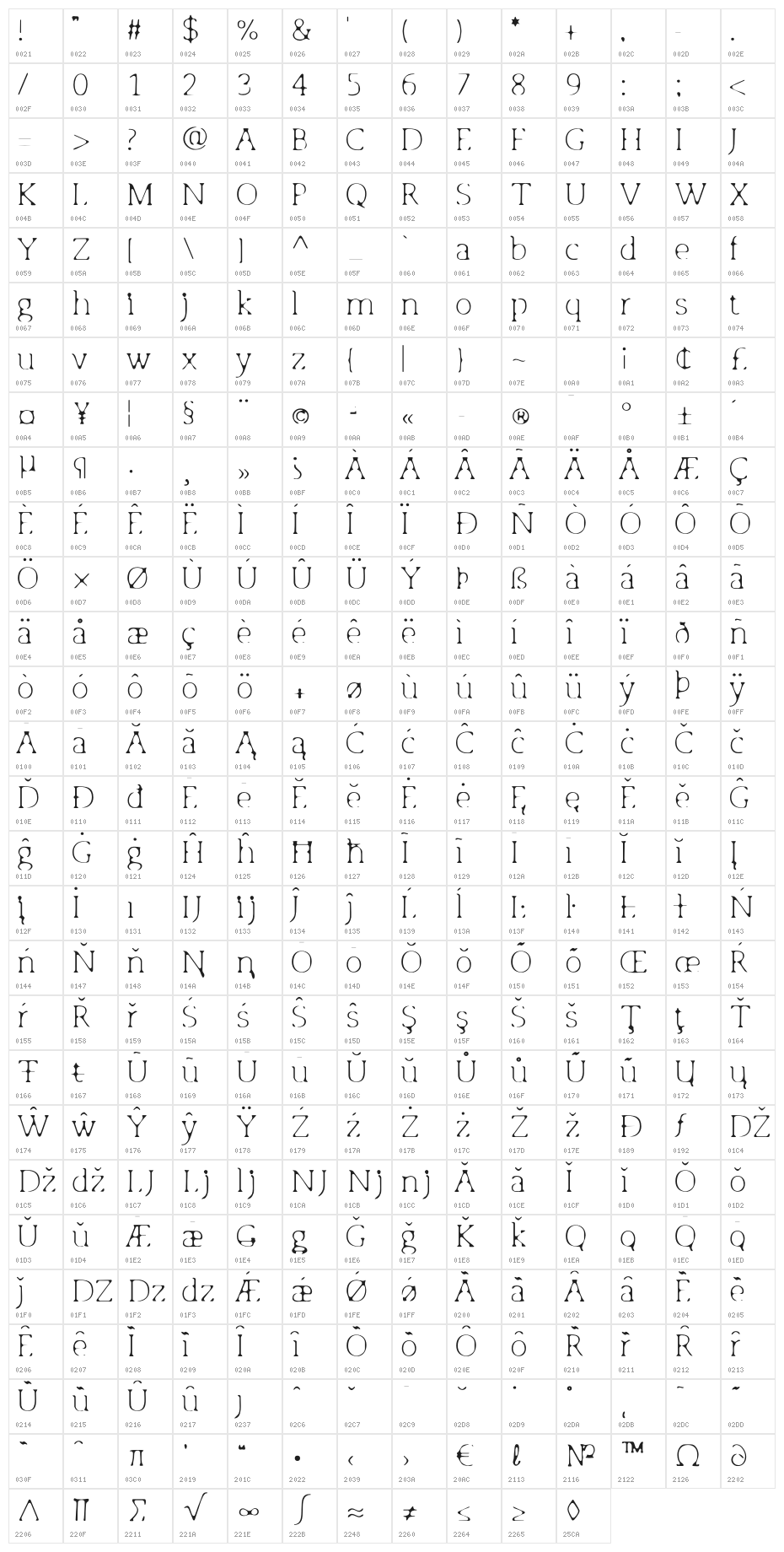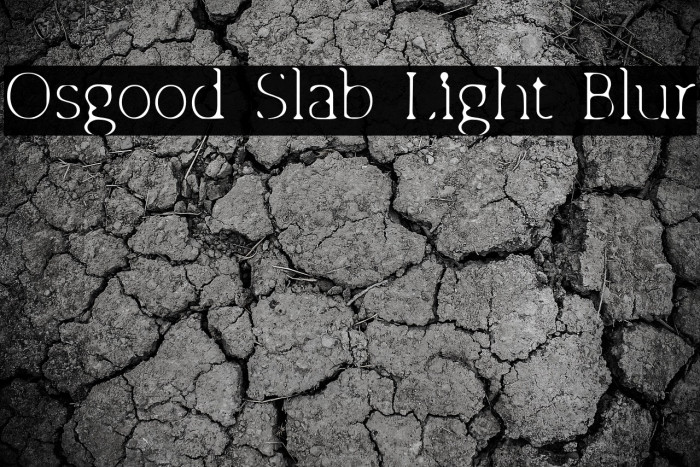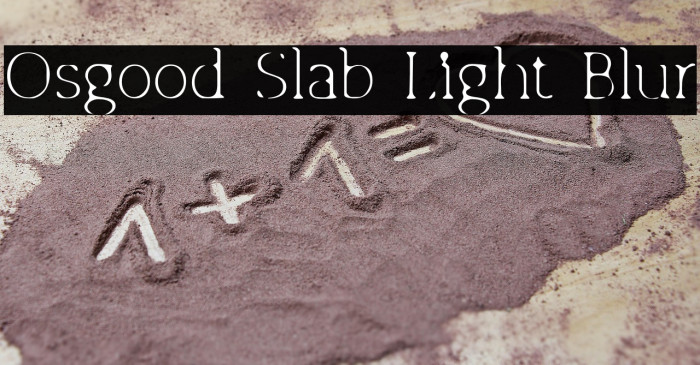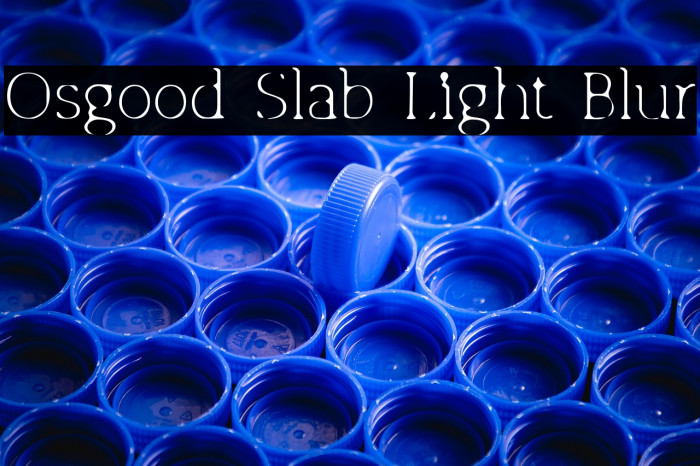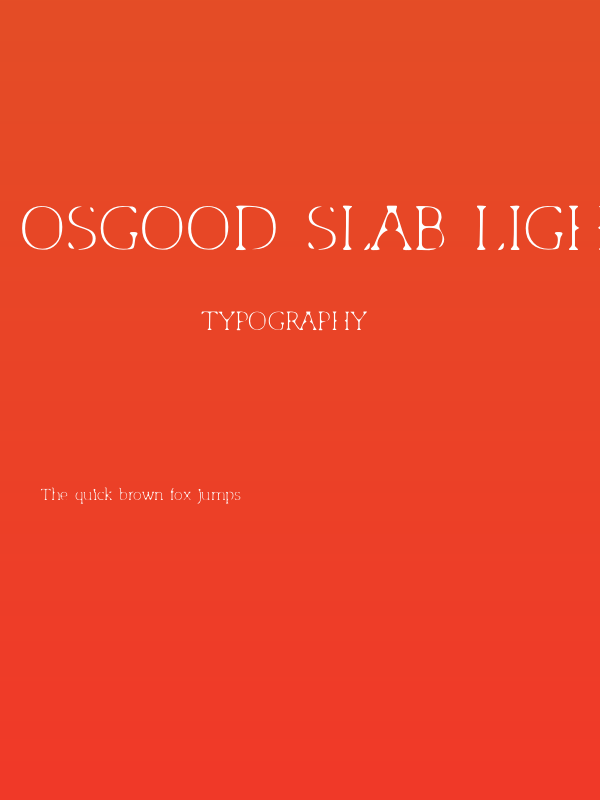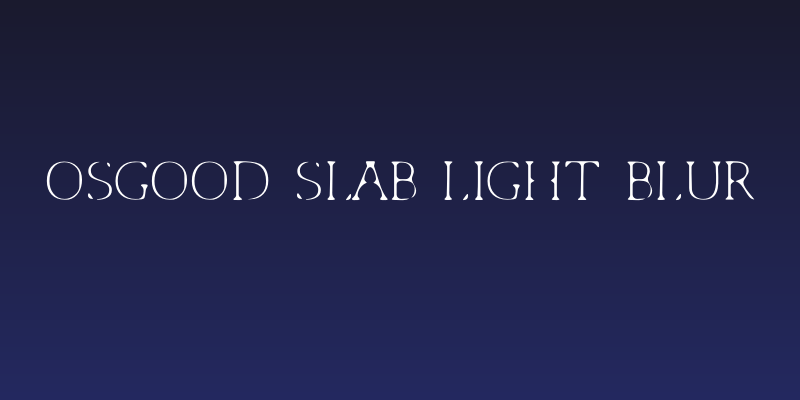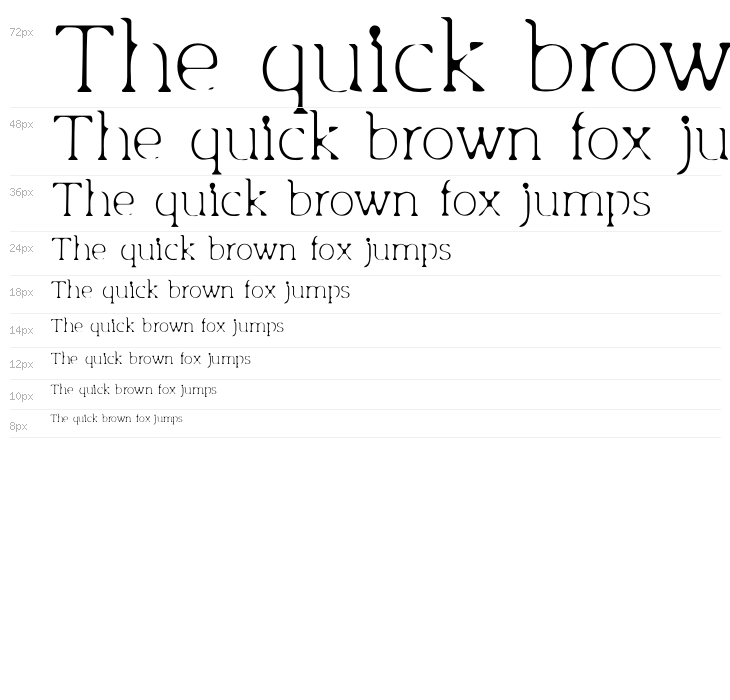
Osgood Slab Light Blur Font
Osgood Slab Light Blur Description
This font features a unique blend of traditional and modern elements, characterized by its slab serif style. The letters exhibit a light weight with a subtle blur effect, adding a touch of softness and elegance. The uppercase characters are bold and commanding, while the lowercase letters maintain a consistent flow with slightly curved edges. Numbers are clear and distinct, ensuring readability. Special characters are designed with attention to detail, complementing the overall aesthetic. The font's design is both artistic and functional, making it versatile for various applications.
| Use Case | Headlines, Logos, Editorial Design |
| Proposed Projects | Ideal for branding, editorial design, and creative projects that require a distinctive and elegant typeface. |